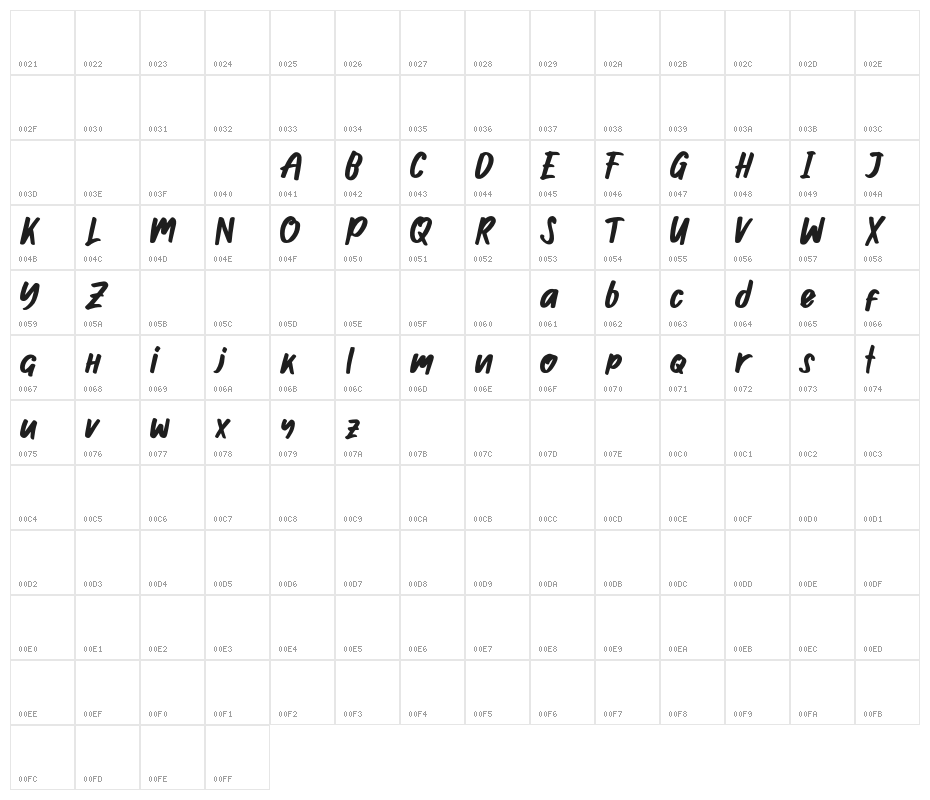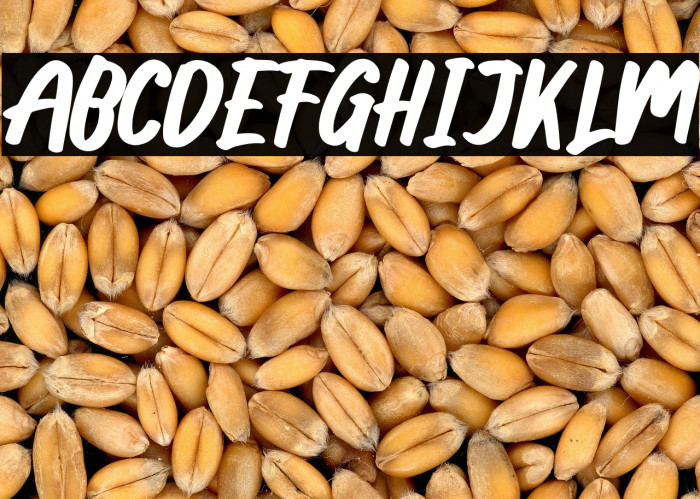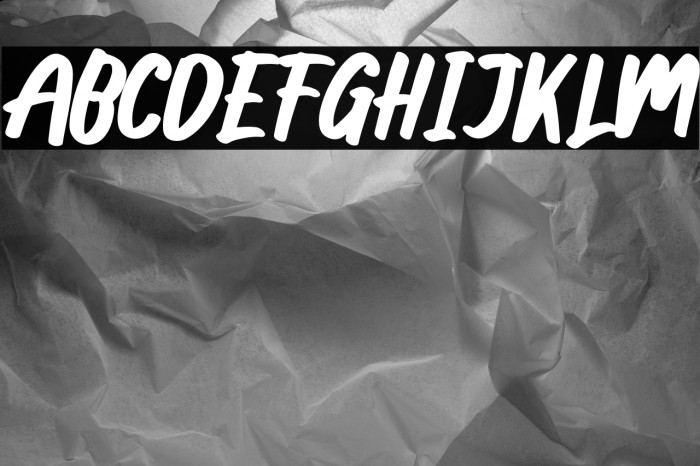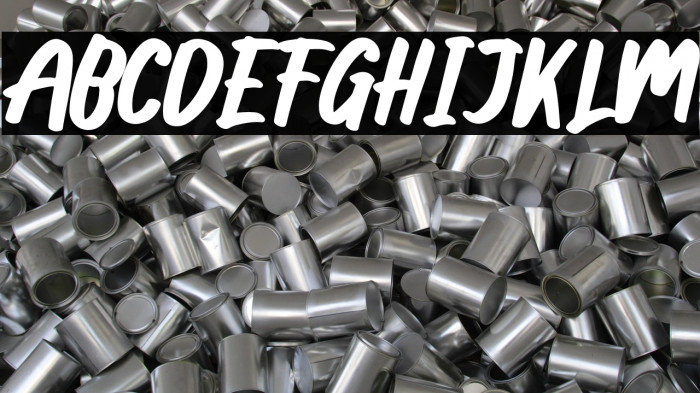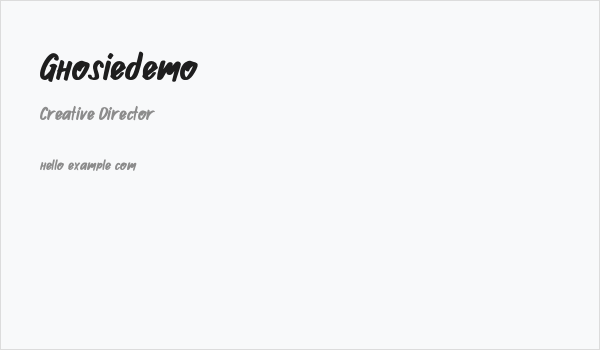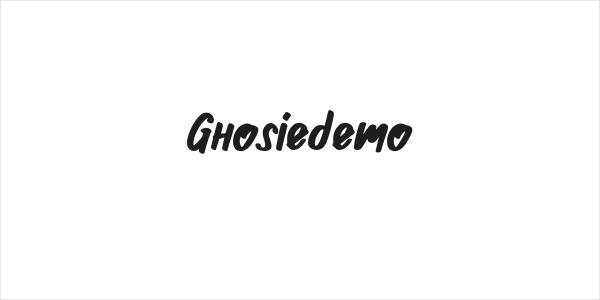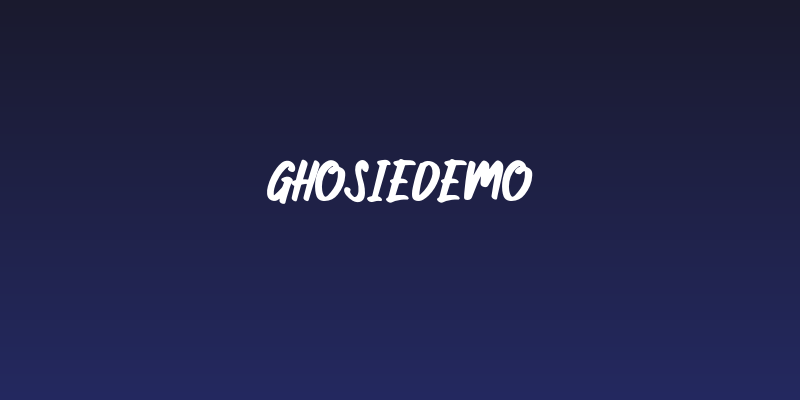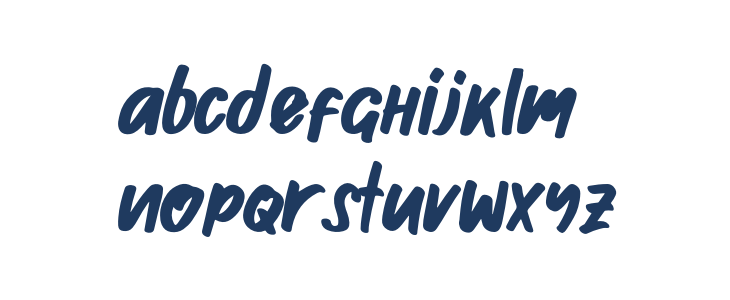
Ghosiedemo Font
Ghosiedemo Description
This font features a bold and expressive handwritten style, characterized by its thick strokes and dynamic curves. The letters are slightly slanted, giving a sense of movement and energy. The uppercase and lowercase letters maintain a consistent style, with rounded edges and a casual, playful appearance. The font's design is reminiscent of brush lettering, making it ideal for projects that require a personal and artistic touch. The overall impression is one of creativity and spontaneity, suitable for a variety of informal and creative applications.